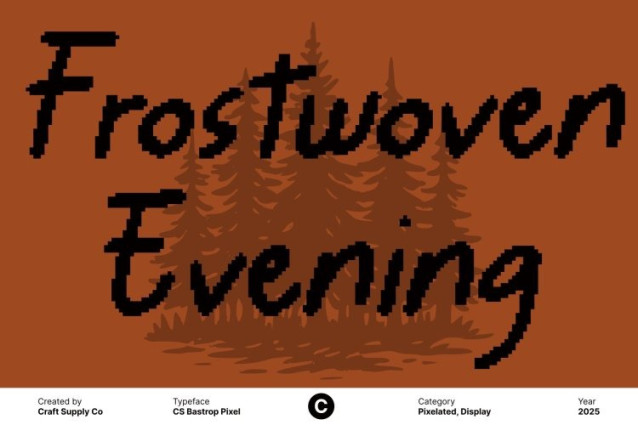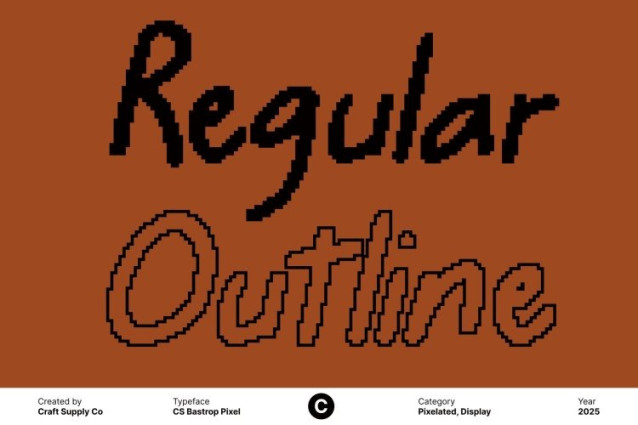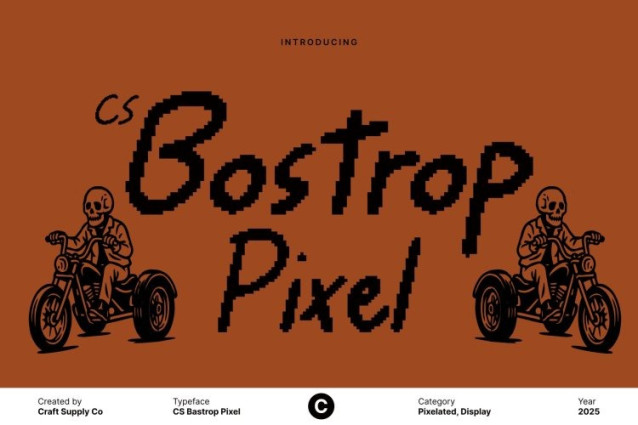
CS Bastrop Pixel Font
CS Bastrop Pixel Font This font brings the charm of handwritten strokes into a clean sans serif structure, all expressed through a fun pixelated aesthetic. This unique blend creates a typeface that feels friendly, modern, and full of personality. Each character carries a handmade touch while still embracing the nostalgic appeal of retro digital pixels.
Pixel Aesthetics for Retro-Inspired Visual Appeal
Designed with blocky pixel forms, this font captures the spirit of early computer graphics and classic gaming visuals. The pixel texture adds a bold, nostalgic character to every letter, making this font perfect for projects that want to evoke digital retro flair or celebrate 8-bit style with a fresh twist.
Handwritten Influence for a Friendly and Expressive Feel
Despite its digital pixel base, the handwritten essence brings warmth and personality into the design. Rounded flows, soft imperfections, and expressive forms make the font feel human and approachable. This combination of handmade charm and digital structure gives this font a playful rhythm that enhances any creative composition.
Ideal for Posters, Branding, and Digital Creative Projects
From bold posters to fun branding systems, this font shines in modern and imaginative layouts. Its playful digital vibe pairs well with gaming designs, social media graphics, product packaging, and retro-inspired visuals.